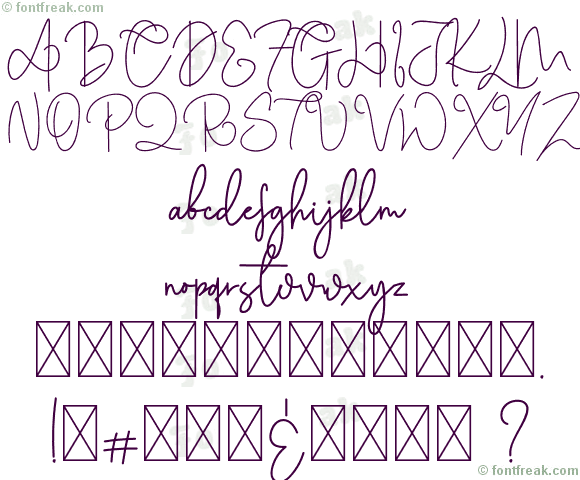
Cothelina
About Cothelina
Cothelina is an elegant script font designed by Rantau Type, released in 2019 under a freeware license. This beautifully crafted typeface embodies a fluid, handwritten style that resonates with warmth and personality, making it an excellent choice for various creative projects. The font features a moderate stroke weight with gentle contrast, allowing for smooth readability while adding a touch of sophistication. Its organic curves and graceful flourishes create a sense of movement, making it visually appealing without overwhelming the viewer.
Cothelina is particularly well-suited for wedding invitations, where its romantic flair can enhance the overall aesthetic. Additionally, it serves as a charming choice for branding materials, such as logos for artisanal shops and cafes, where a personal touch is essential. The font can also elevate restaurant menus, giving them a unique character that reflects the establishment's ambiance. Content creators will find it useful for social media graphics, adding a handwritten quality that captures attention and engages audiences effectively.
The target audience for Cothelina includes graphic designers looking for versatile typefaces, small business owners aiming to convey a friendly image, and content creators who want to enrich their visual storytelling.
What truly sets the Cothelina font apart is its ability to blend elegance with approachability, making it suitable for both formal and casual applications. Its distinctive characteristics and charm make it a standout choice for anyone seeking a font that adds a personal touch to their designs. For those interested in enhancing their creative projects, the Cothelina font free download is readily available, making it accessible for all to enjoy.